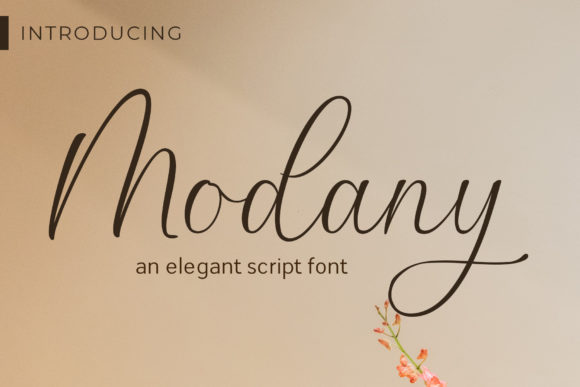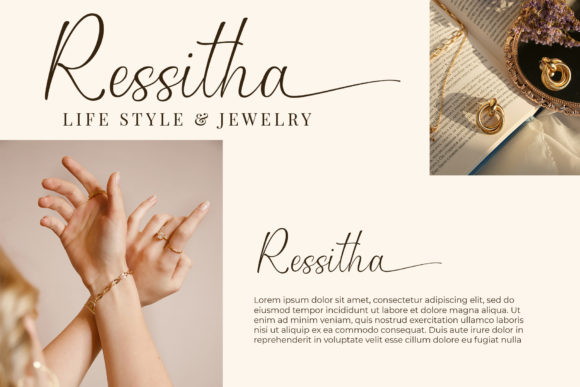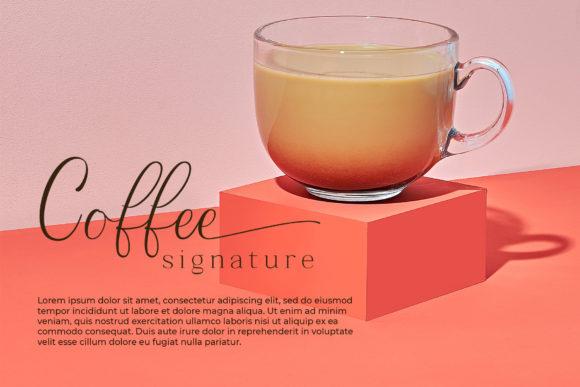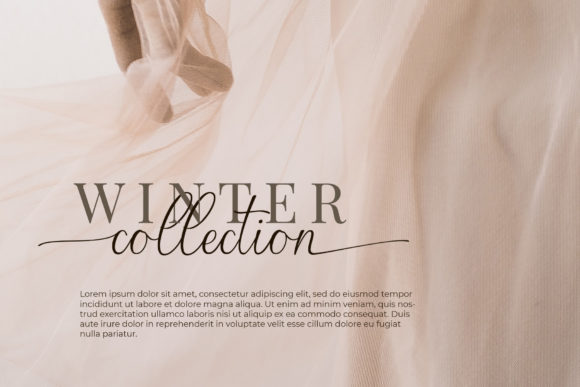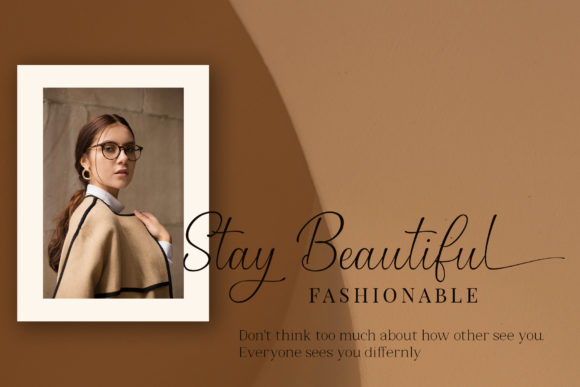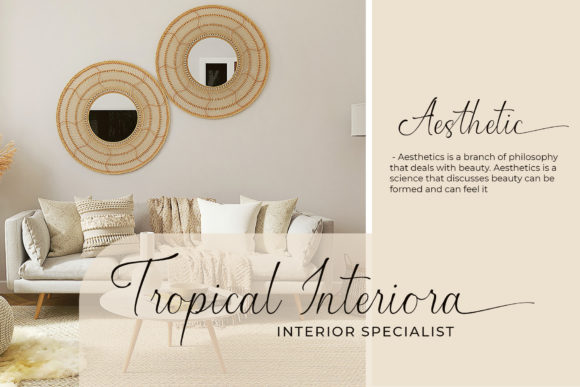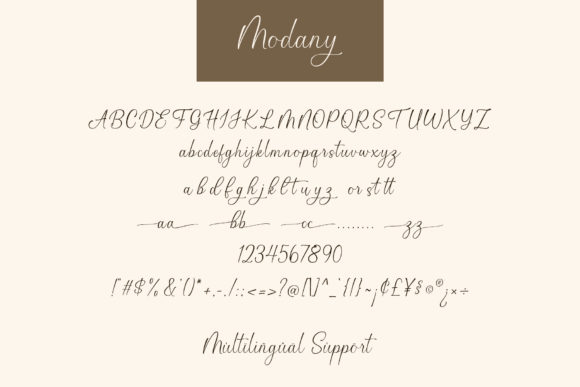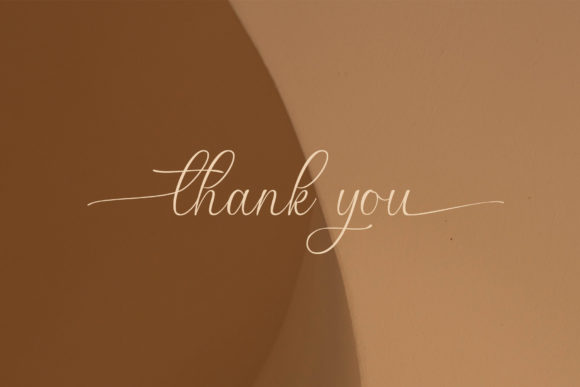
Modany Font
About Modany Font
Modany is a handwritten font that exudes sweetness and elegance with its cursive style. This gentle font is versatile and can beautifully complement a variety of design ideas. Whether you’re working on a branding project, creating greeting cards, designing product packaging, or adding a personal touch to your digital designs, Modany is an excellent choice.
One of the key features of Modany is its ability to add a joyful and romantic touch to your projects. Its sweet and cursive style can bring a sense of warmth and intimacy to your designs, making them more engaging and appealing to the audience.
Moreover, Modany is PUA encoded, which means you can easily access all of its amazing glyphs and ligatures. This feature allows you to explore a wide range of design possibilities and add a unique touch to your projects. Whether you’re looking to create elegant headlines, captivating logos, or expressive text, Modany’s glyphs and ligatures can help you achieve your design goals.